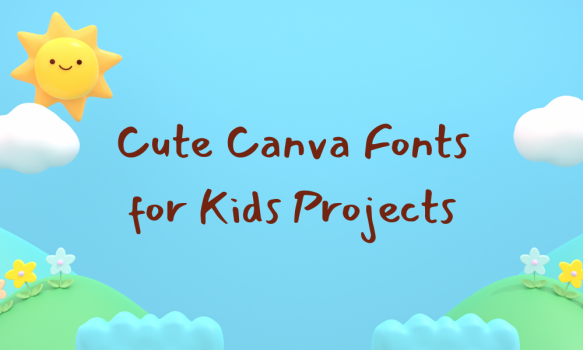
Choosing the right font can turn a simple project into a captivating masterpiece, especially when it comes to creating materials for kids. Fonts that are fun, colorful, and easy to read are essential to grab their attention and make the learning process enjoyable. That’s why Canva offers a variety of cute fonts perfect for any kids’ project, from classroom presentations to party invitations. In this article, we’ve rounded up 20 of the cutest Canva fonts that are sure to add a touch of whimsy and charm to your designs. Each of these fonts brings its own unique flair to kids’ projects, making them not only more engaging but also enhancing the readability and enjoyment of the content for young learners.
1. BangersÂ
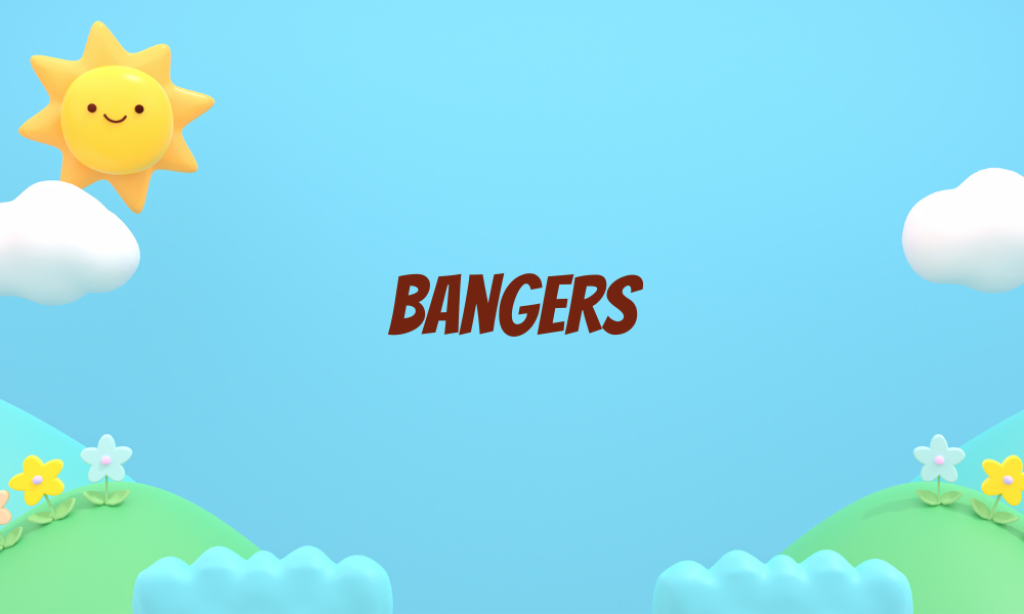
Why it is a Cute font: This font is bold and impactful, making it great for headlines and titles that need to stand out. Its comic book style appeals to young audiences, bringing an element of fun and excitement to any design.
2. Bryndan WriteÂ
Why it is a Cute font: With its handwriting-like appearance, Bryndan Write adds a personal touch to projects. It’s informal and friendly, perfect for making kids feel more connected to the content.
3. ChewyÂ
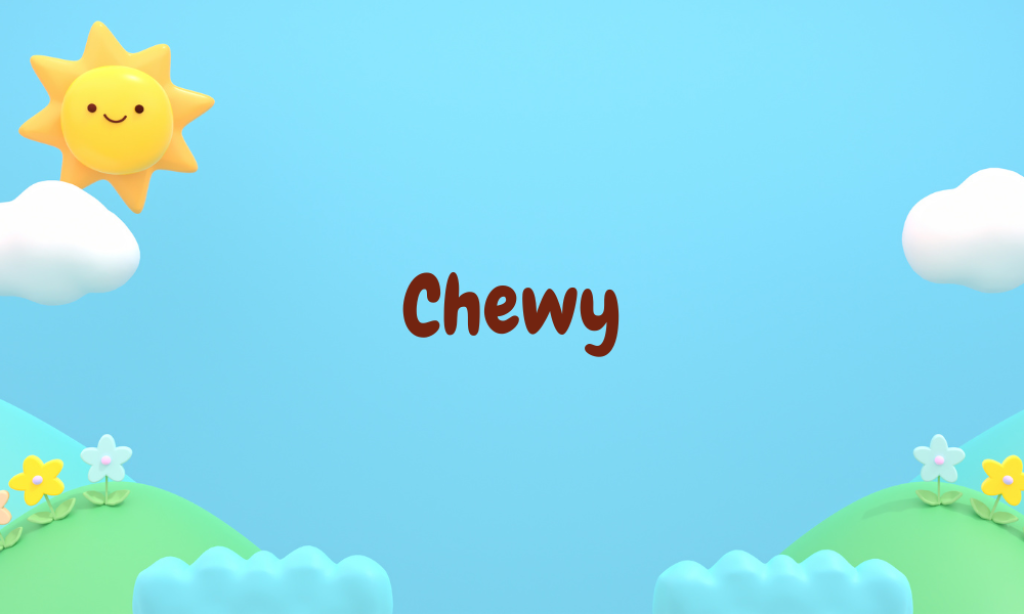
Why it is a Cute font: Chewy is as fun and bouncy as its name suggests. Its rounded edges make it very readable, which is essential for younger children who are still practicing their reading skills.
4. Coming SoonÂ
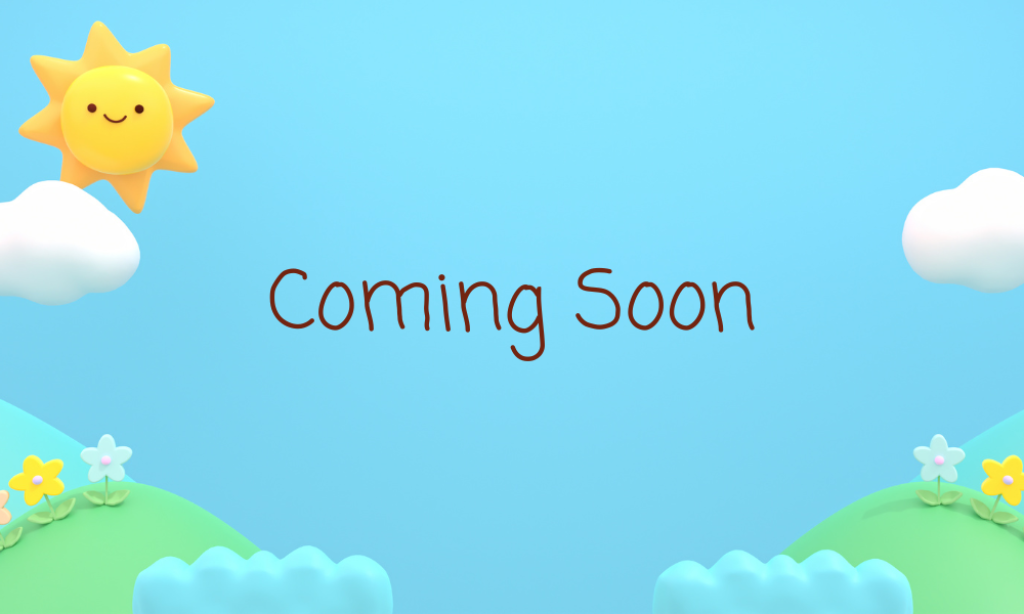
Why it is a Cute font: This font mimics the look of casual handwriting, making it relatable and easy to read for kids. It’s perfect for creating a laid-back, approachable vibe in any project.
5. CrushedÂ
Why it is a Cute font: With its slightly textured edges, Crushed has a unique character that can add a playful, rustic feel to creative projects, ideal for themes related to nature or outdoor activities.
6. Dreaming Outloud SansÂ
Why it is a Cute font: This modern sans-serif font is clean and straightforward yet has a youthful energy thanks to its slight quirks in letter shapes, making it versatile for various types of children’s projects.
7. FredokaÂ
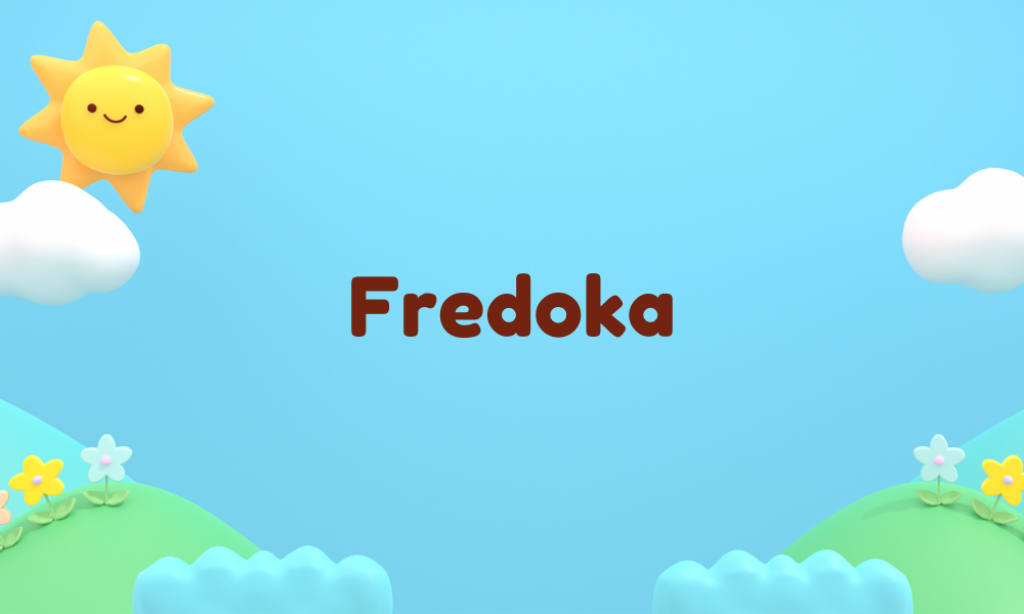
Why it is a Cute font: Fredoka is rounded and friendly, great for projects that require large, readable text. It’s modern and comes in bold, which helps in creating engaging and eye-catching content.
8. Gloria HallelujahÂ
Why it is a Cute font: It looks like it was written by a child, which can make school-related projects more relatable and less intimidating for young students. It’s casual and unpretentious.
9. KalamÂ
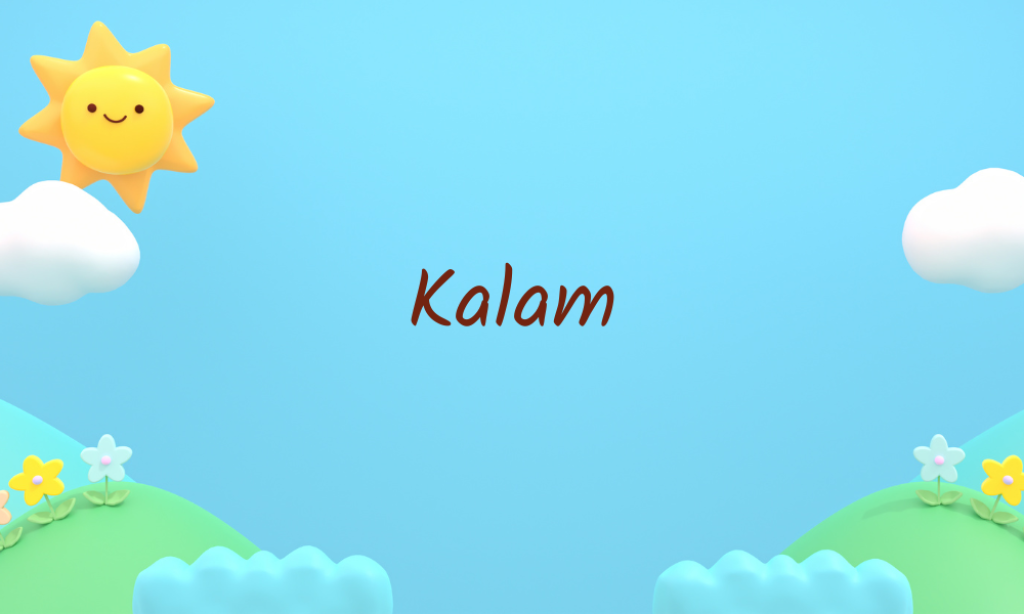
Why it is a Cute font: Kalam is another font that captures the essence of hand-drawn text. It’s expressive and has a touch of sophistication while remaining accessible to kids.
10. LazydogÂ
Why it is a Cute font: As playful as the name suggests, Lazydog has a relaxed style that’s great for informal or creative projects where a touch of whimsy is needed.
11. MansalvaÂ
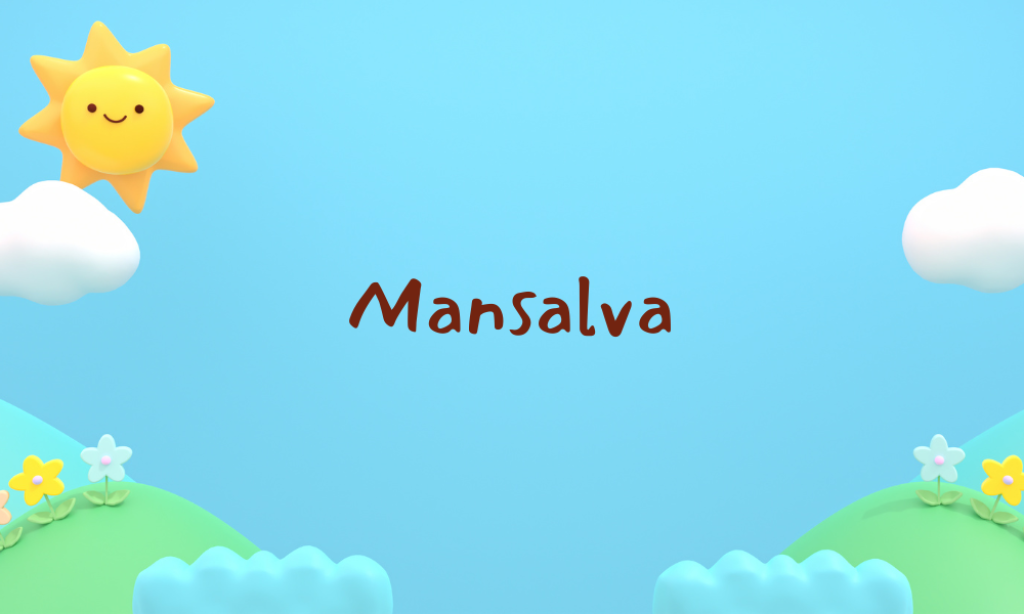
Why it is a Cute font: Mansalva’s brush-like qualities make it appear energetic and vibrant. It’s perfect for titles or any text that needs a bit of artistic flair.
12. More SugarÂ
Why it is a Cute font: Extremely sweet and charming, More Sugar is ideal for projects that aim to delight and attract young, imaginative minds.
13. PacificoÂ
Why it is a Cute font: An elegant script font that manages to be both classy and fun, making it suitable for everything from event invitations to award certificates.
14. PangolinÂ
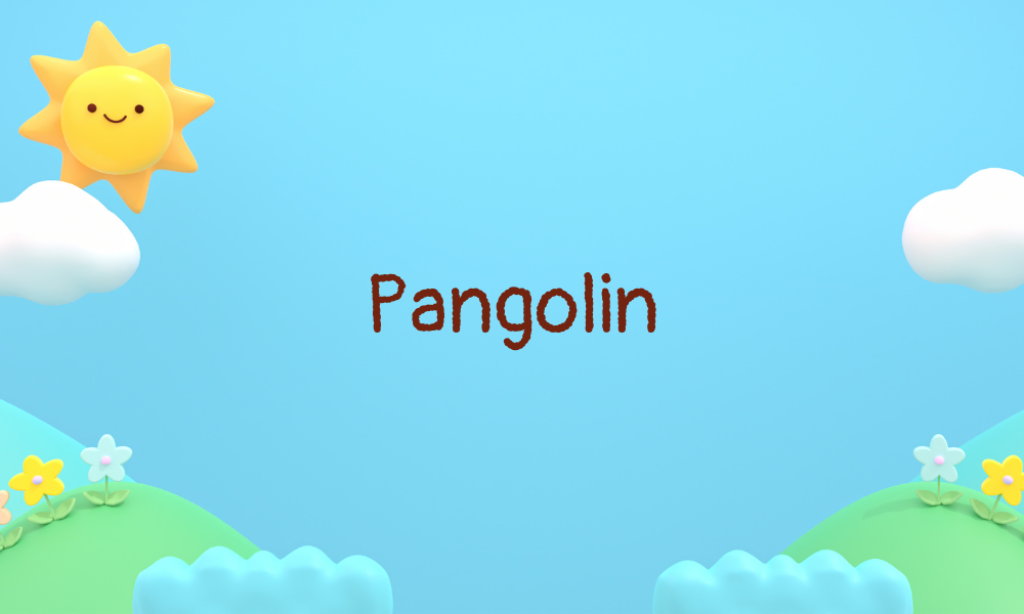
Why it is a Cute font: Pangolin has a unique, rounded style with a slight hand-drawn appearance, making it friendly and appealing for kids’ projects that aim to be engaging and distinctive.
15. Permanent MarkerÂ
Why it is a Cute font: Bold and assertive, this font mimics the thick strokes of a marker, perfect for making statements and drawing attention in posters and signage.
16. SatisfyÂ
Why it is a Cute font: Satisfy brings the beauty of cursive handwriting into a project, providing a touch of elegance while remaining clear and readable, suitable for more formal or decorative applications.
17. SchoolbellÂ
Why it is a Cute font: Reminiscent of neat school writing, Schoolbell is approachable and clear, making it ideal for educational materials or any project that benefits from a straightforward, friendly font.
18. SigherÂ
Why it is a Cute font: Unique and slightly abstract, Sigher offers a modern twist to any project, making it stand out while still being kid-friendly with its quirky letter shapes.
19. Walter TurncoatÂ
Why it is a Cute font: This font has a mischievous, playful vibe, perfect for projects that require a bit of whimsy or comic relief.
20. YellowtailÂ
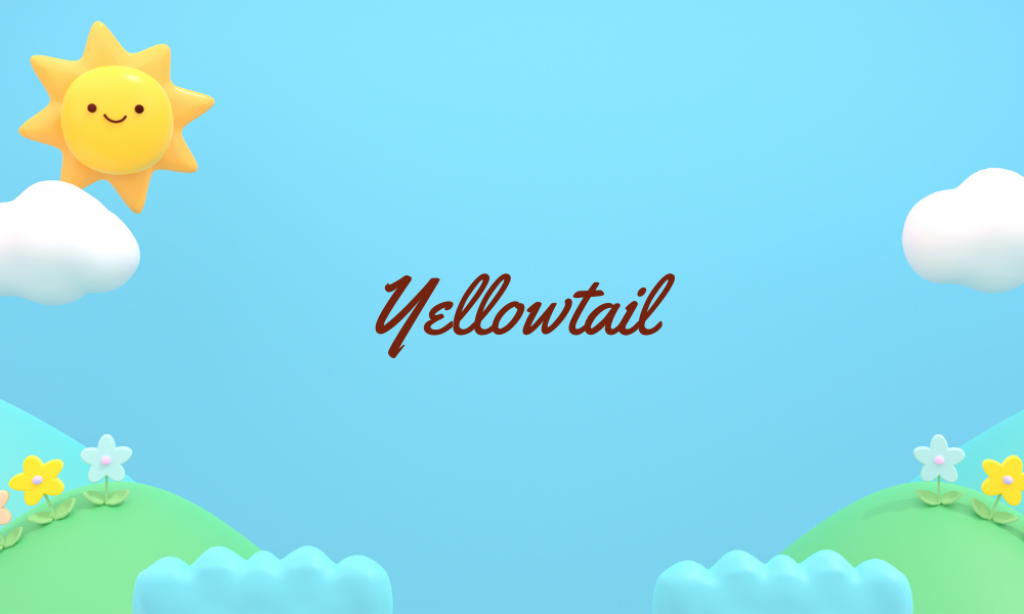
Why it is a Cute font: Yellowtail is a fat script font that mixes modern and retro, making it perfect for projects that need a stylish yet playful touch.